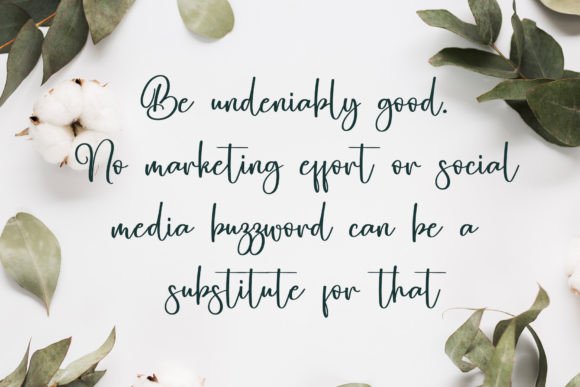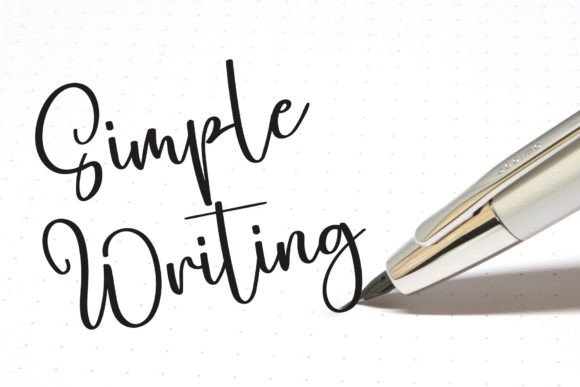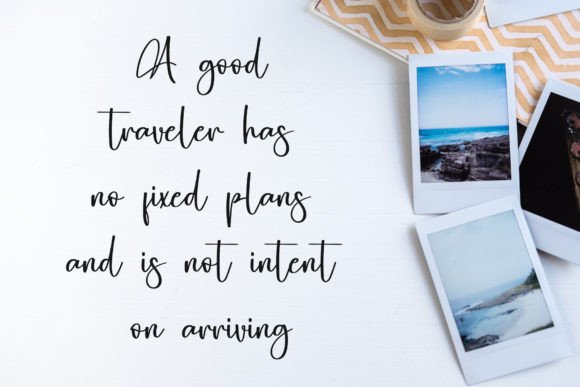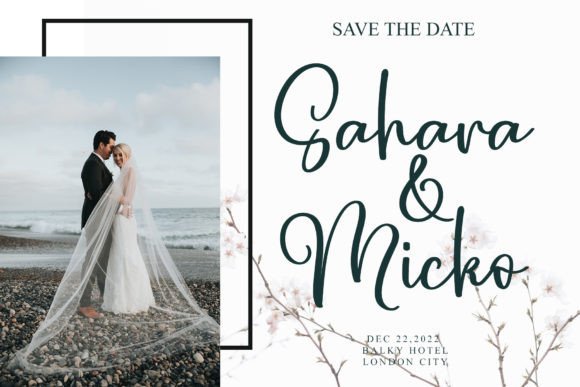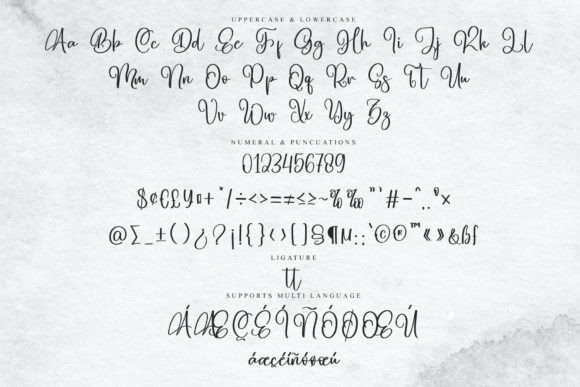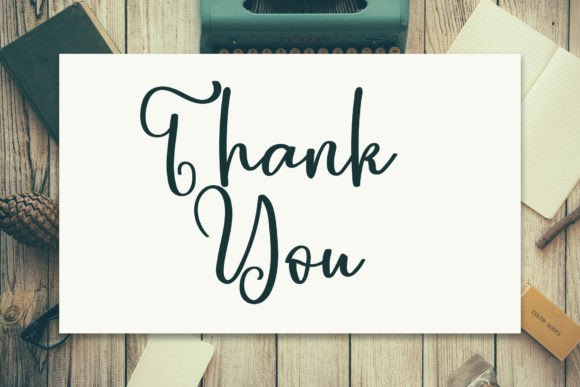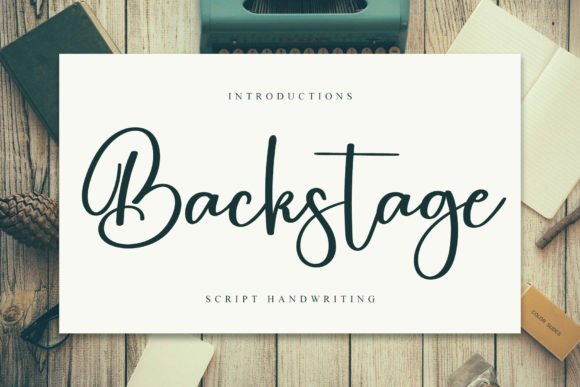
Introducing Backstage Font: Elevate Your Designs with Elegance and Sophistication
Are you a designer or crafter looking for a font that can add a touch of luxury to your projects? Look no further than Backstage Font! This sweet and beautiful handwritten font is designed to make your designs stand out with its unique and elegant style. In this article, we’ll dive into the features and benefits of Backstage Font, and explore how you can use it to take your designs to the next level.
The Charm of Backstage Font
Backstage Font is a handwritten font that boasts a distinctive and charming style. Its characters are carefully crafted to dance along the baseline, creating a sense of movement and fluidity. This unique feature sets Backstage Font apart from other fonts, making it perfect for designers who want to add a touch of whimsy and sophistication to their projects.
Whether you’re working on a branding project, a wedding invitation, or a packaging design, Backstage Font is sure to impress. Its elegant and refined style makes it suitable for a wide range of applications, from high-end luxury brands to delicate and feminine designs.
Key Features of Backstage Font
- Unique Character Design: Backstage Font features characters that dance along the baseline, creating a sense of movement and fluidity.
- Elegant and Refined Style: This font boasts a sophisticated and luxurious style, perfect for high-end designs.
- Handwritten with Love: Backstage Font is carefully crafted with attention to detail, giving it a personal and human touch.
- Versatile and Adaptable: This font can be used for a wide range of applications, from branding and advertising to packaging and stationery.
Benefits of Using Backstage Font
So why choose Backstage Font for your next design project? Here are just a few benefits of using this beautiful font:
- Adds a Touch of Luxury: Backstage Font can instantly elevate your designs and give them a high-end feel.
- Creates Emotional Connection: The unique and charming style of Backstage Font can help create an emotional connection with your audience.
- Stand Out from the Crowd: This font’s distinctive style ensures that your designs will stand out from the competition.
- Easy to Read and Understand: Despite its elegant style, Backstage Font is clear and easy to read, making it perfect for body text and headlines.
How to Use Backstage Font in Your Designs
Using Backstage Font in your designs is easy! Here are a few tips to get you started:
- Pair it with a Simple Font: Pair Backstage Font with a simple font to create a striking contrast and make your designs more readable.
- Experiment with Colors and Textures: Play around with different colors and textures to add depth and interest to your designs.
- Use it for Headlines and Titles: Backstage Font is perfect for headlines and titles, where its elegant style can shine.
- Add a Personal Touch: Use Backstage Font to add a personal touch to your designs, making them more relatable and engaging.
In conclusion, Backstage Font is a beautiful and elegant handwritten font that can add a touch of luxury to any design project. Its unique character design, refined style, and versatility make it perfect for designers and crafters who want to create stunning and sophisticated designs. Whether you’re working on a branding project, a wedding invitation, or a packaging design, Backstage Font is sure to impress. So why not give it a try and see the magic for yourself?
With Backstage Font, you can elevate your designs and take them to the next level. Its charm, elegance, and sophistication make it a must-have font for any designer or crafter looking to create beautiful and engaging designs. So don’t wait – get creative with Backstage Font today and discover the power of beautiful typography!